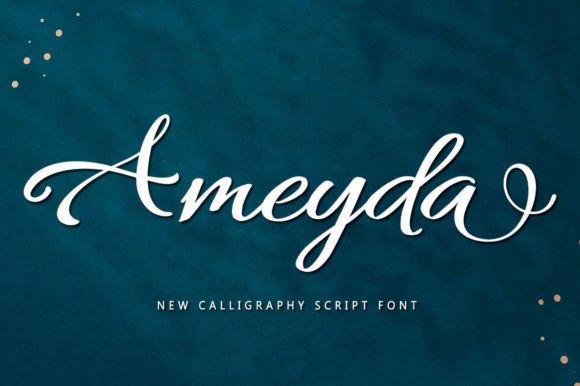
Introducing Ameyda Font - The Enchanting Script that Captivates and Inspires. Surrender to the elegance and allure of Ameyda Font, a breathtaking script typeface meticulously crafted to leave an unforgettable impression. Step into a world of creative possibilities and elevate your designs with this remarkable font.
With its captivating curves and delicate strokes, Ameyda Font emanates a sense of sophistication and charm. This remarkable script dances across your designs, gracing them with a touch of timeless beauty. It's a font that speaks to the heart, evoking emotions and leaving a lasting impact on your audience.
Handcrafted with precision, Ameyda Font embodies the essence of artistry and craftsmanship. Its versatility knows no bounds, effortlessly adapting to a wide array of projects, from elegant wedding invitations to eye-catching logos, from stylish t-shirts to captivating posters. Unleash your creativity and let Ameyda Font transform your designs into masterpieces.
Whether you're a seasoned designer or just starting your creative journey, Ameyda Font is your perfect companion. Its intuitive design and user-friendly nature make it accessible to all. Experience the joy of crafting designs that resonate with your audience, leaving them spellbound and eager for more.
Immerse yourself in the world of Ameyda Font and discover a treasure trove of creative possibilities. Let your imagination soar as you craft designs that captivate and inspire. Transform your projects into works of art and leave an enduring legacy of creativity.